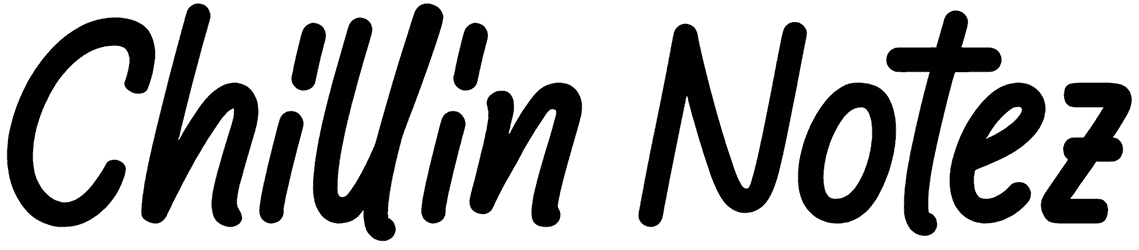
Chillin Notez Font
Chillin Notez font feels like a notebook margin that got bored during class and decided to become the main headline. Its loose marker style brings a relaxed, sketchy charm to the letters, with just enough attitude to make the words feel casual instead of childish. You get that handwritten street-note vibe without the design falling apart.
Use this handwritten font for music covers, school posters, sticker packs, skate graphics, journal titles, youth event flyers, or social media quotes that need a laid-back voice. Add paper textures, doodles, and bold colors, and it instantly starts hanging out properly.